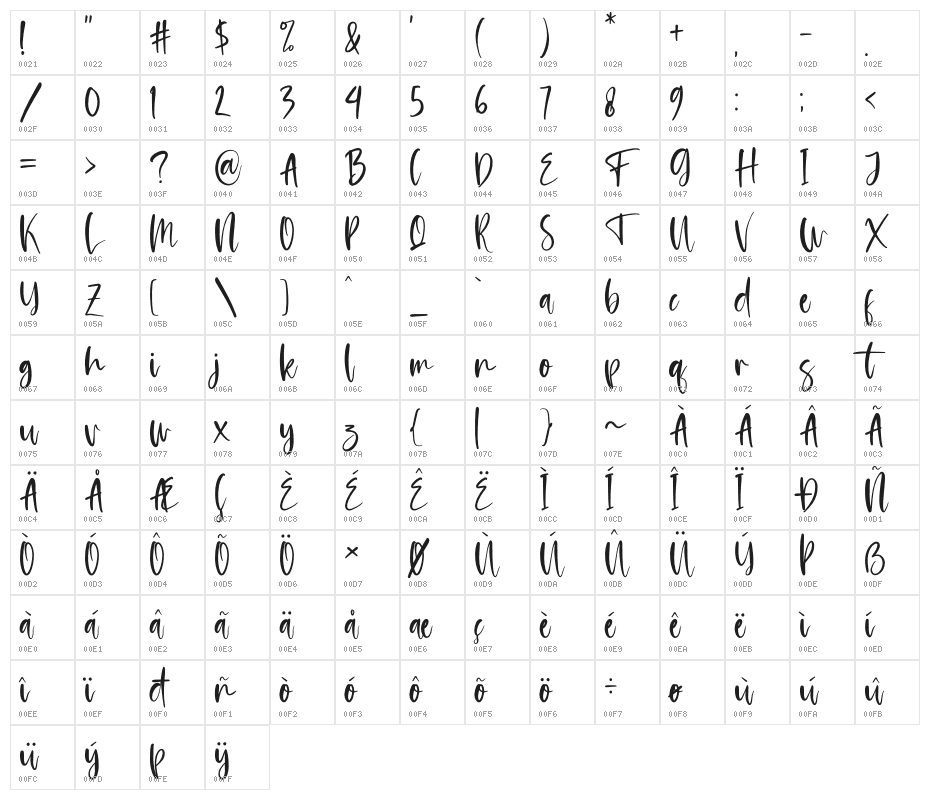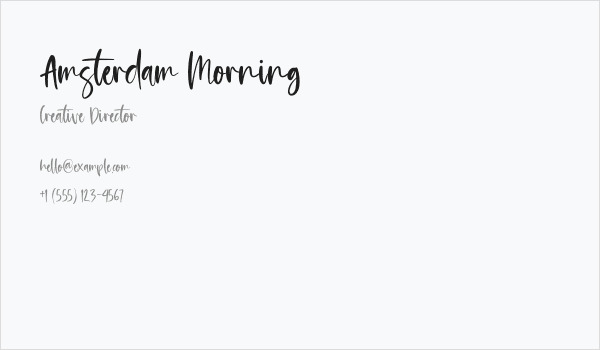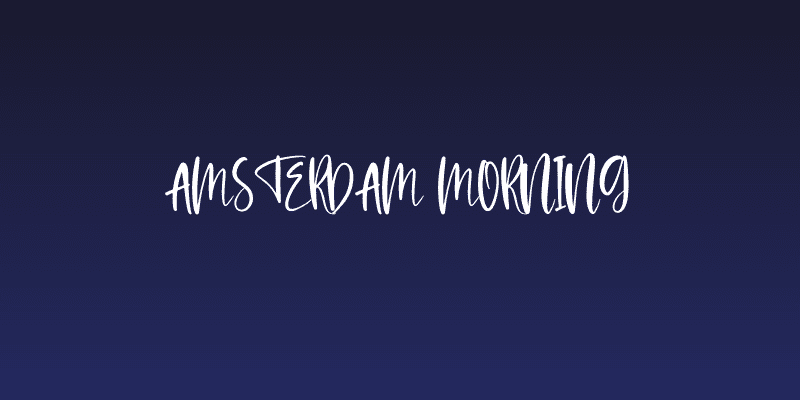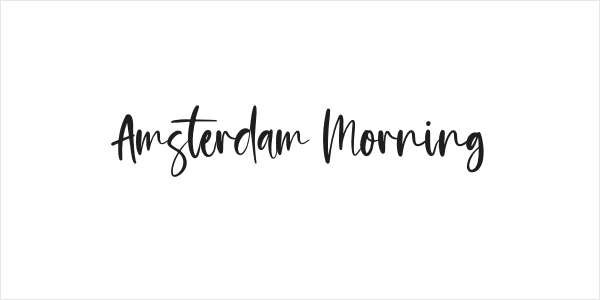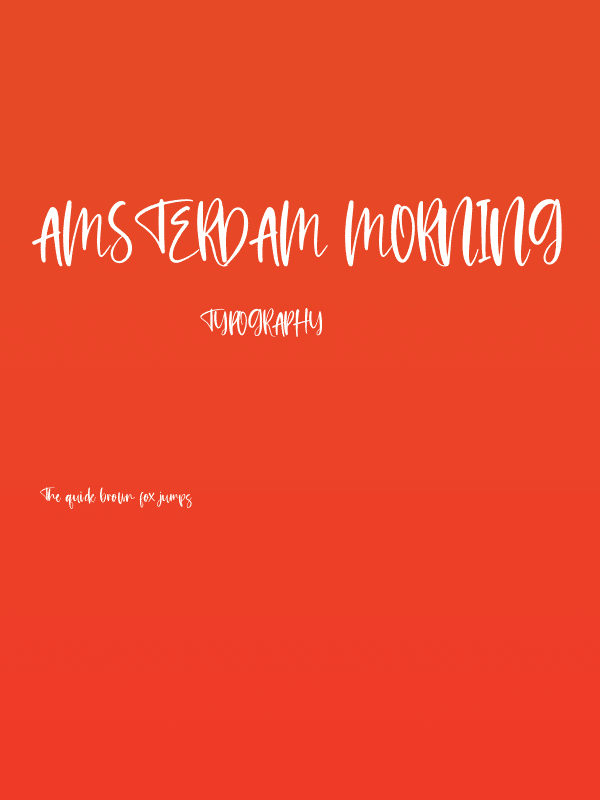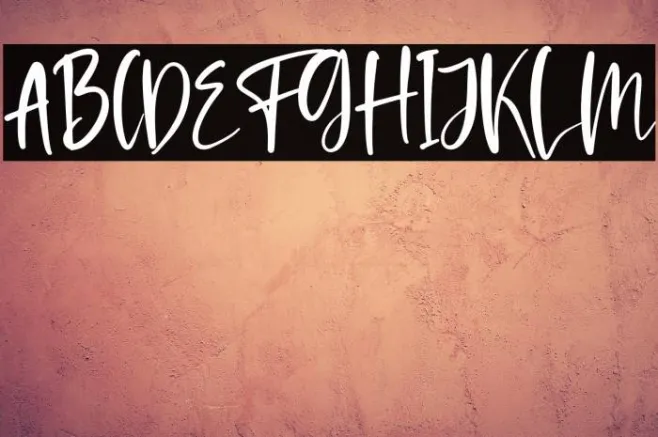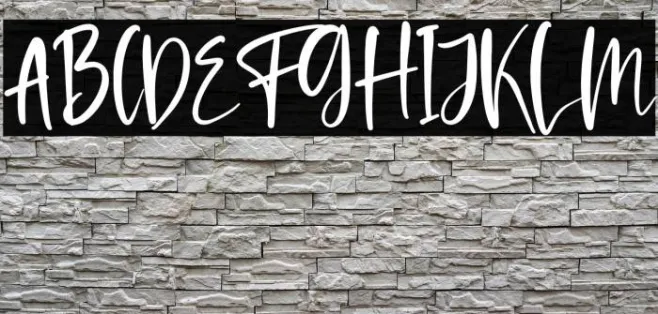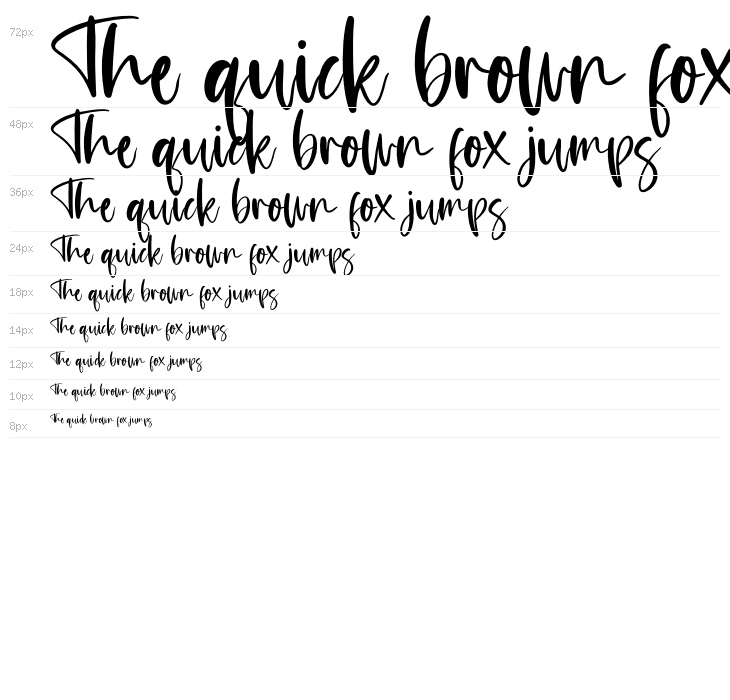
Amsterdam Morning Font
Amsterdam Morning Description
This font features a lively and expressive handwritten style, characterized by its fluid and dynamic strokes. The letters are bold and slightly irregular, giving it a personal and artistic touch. The uppercase letters are tall and narrow, while the lowercase letters maintain a consistent flow, enhancing readability. Numbers and special characters are crafted with the same playful energy, making them stand out. The overall appearance is modern and trendy, suitable for creative projects that require a personal and informal tone.